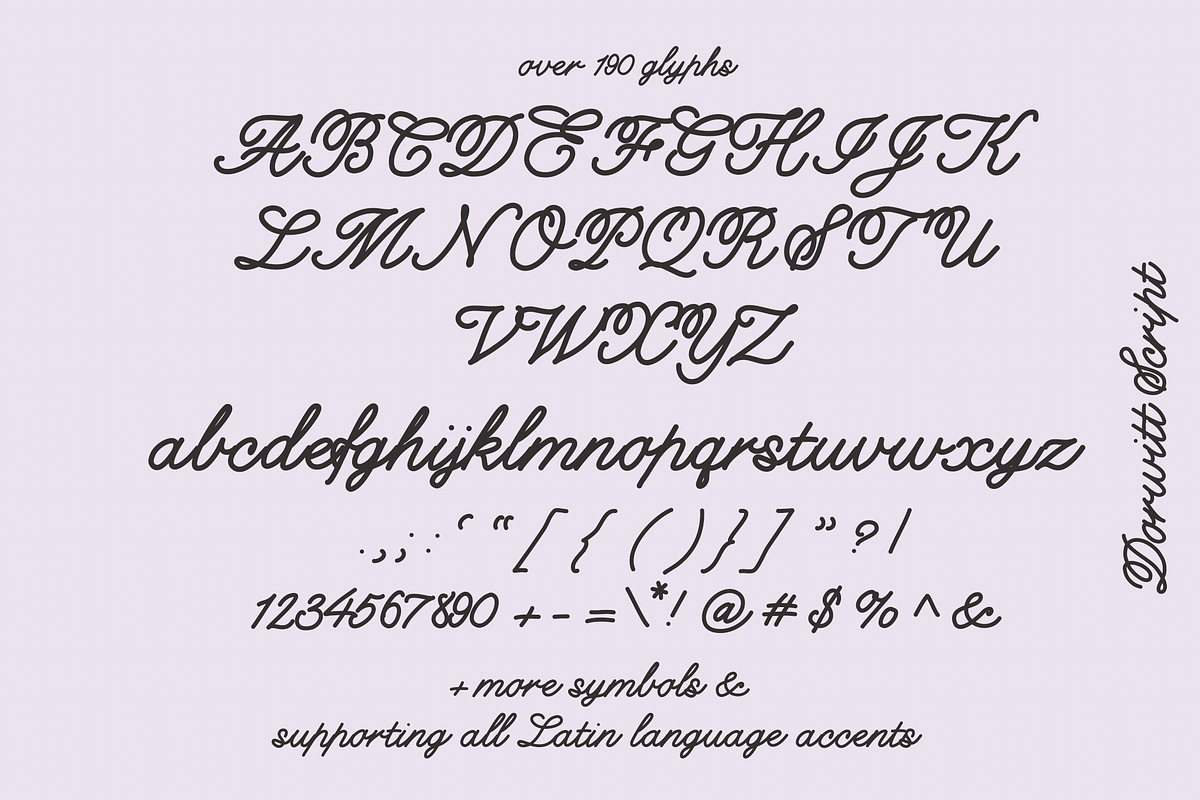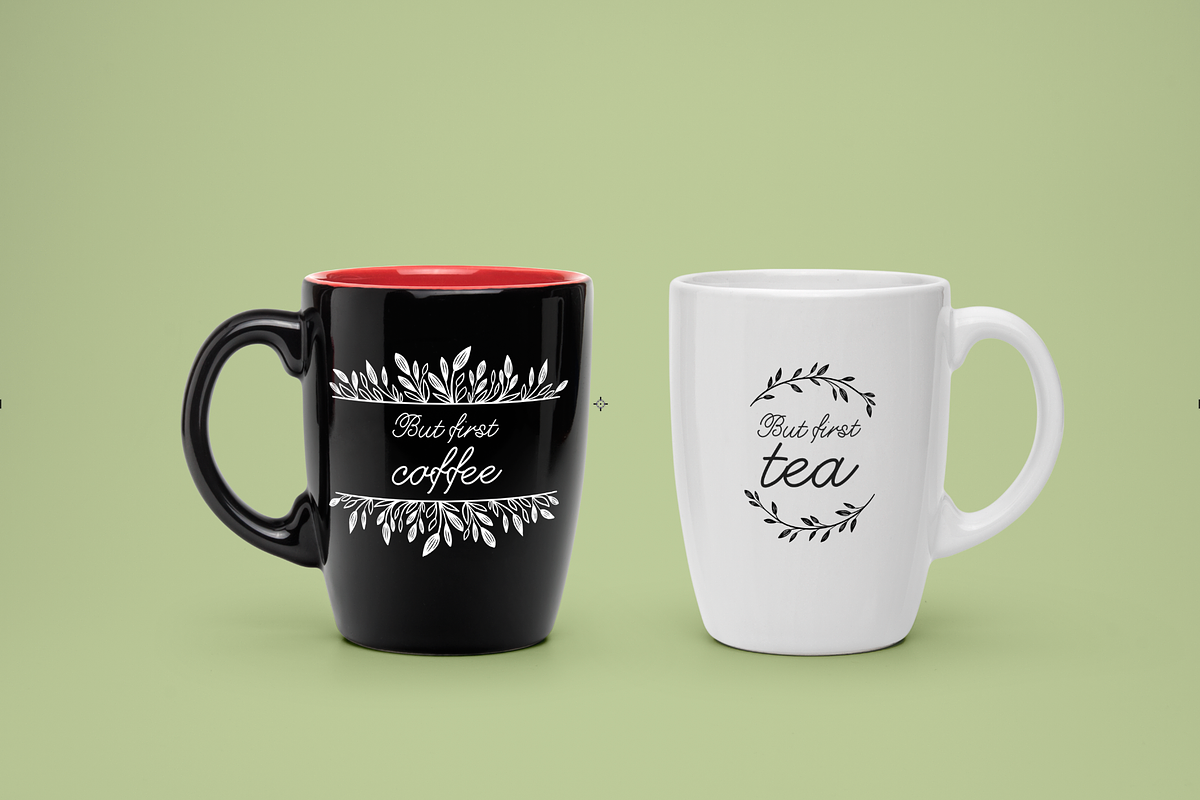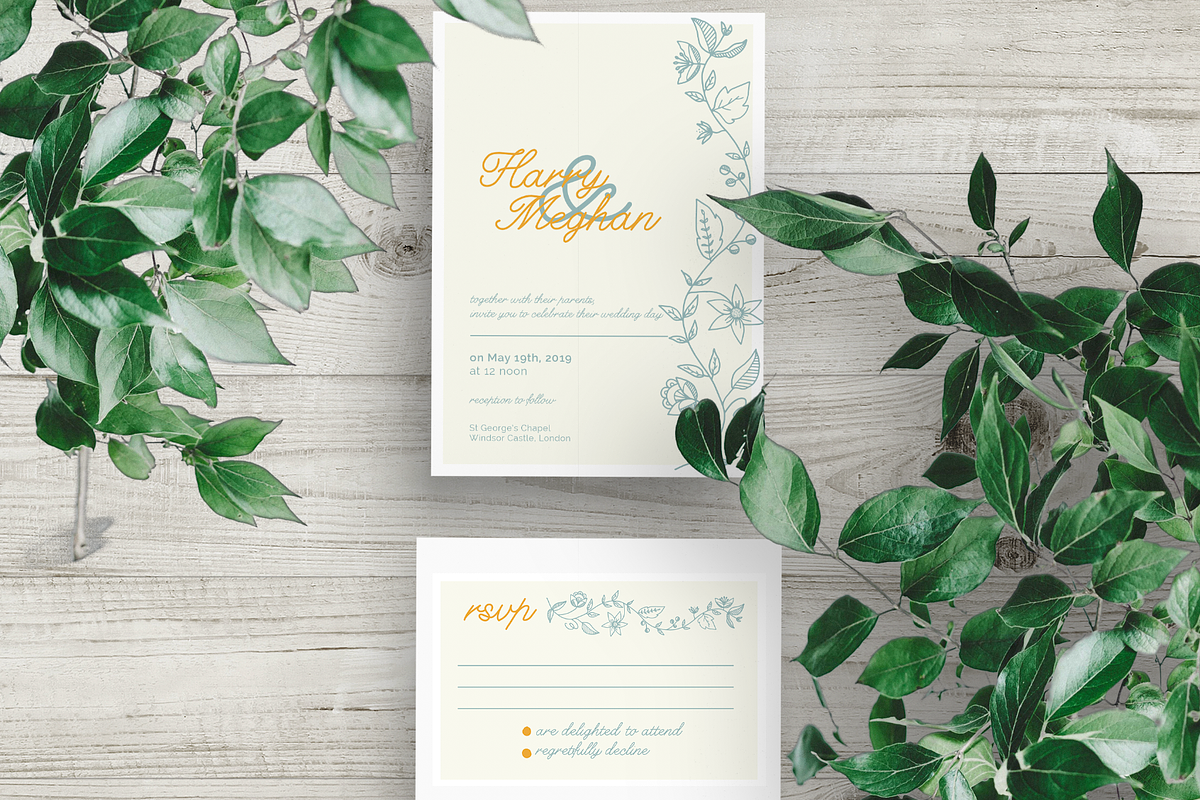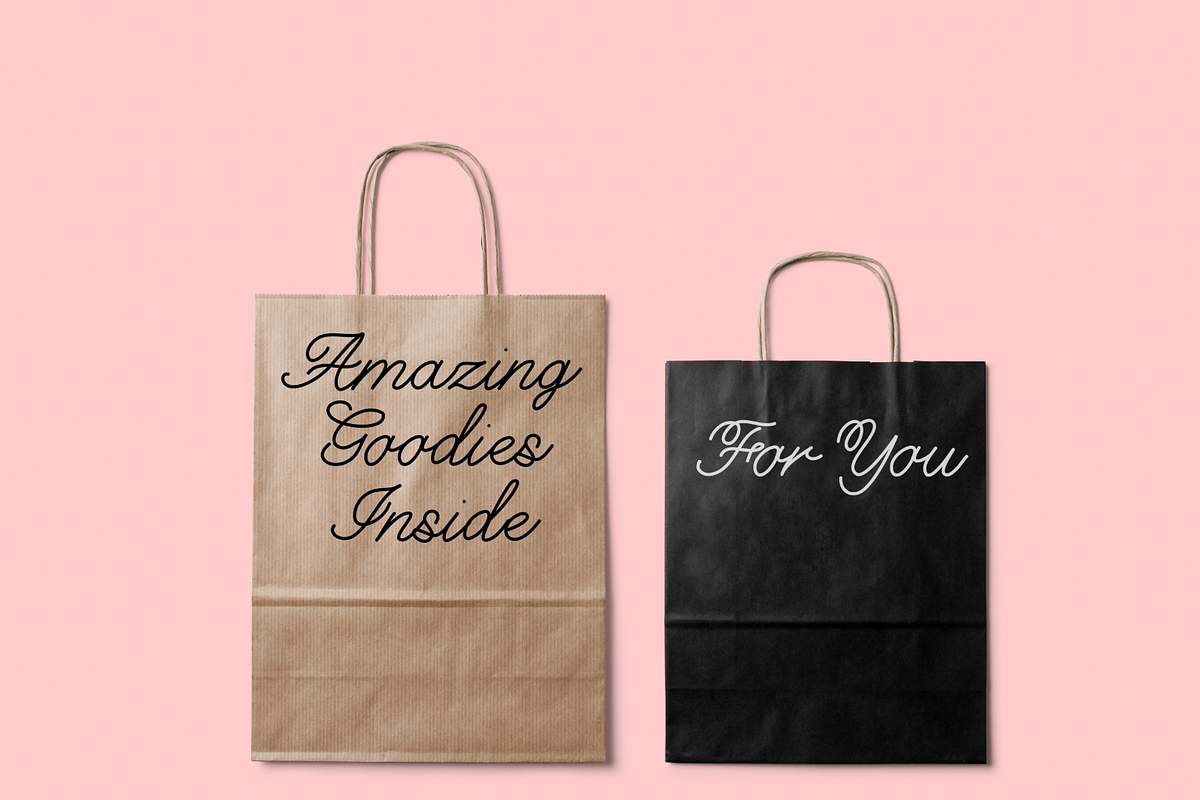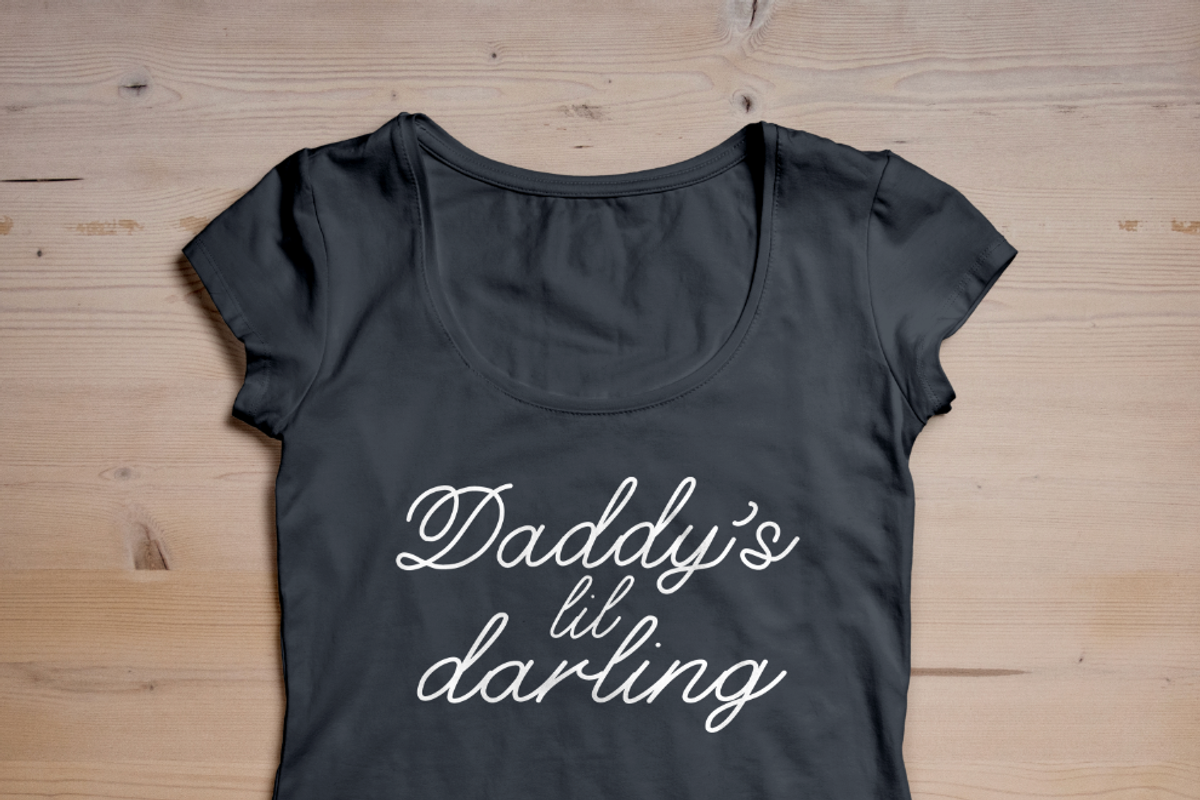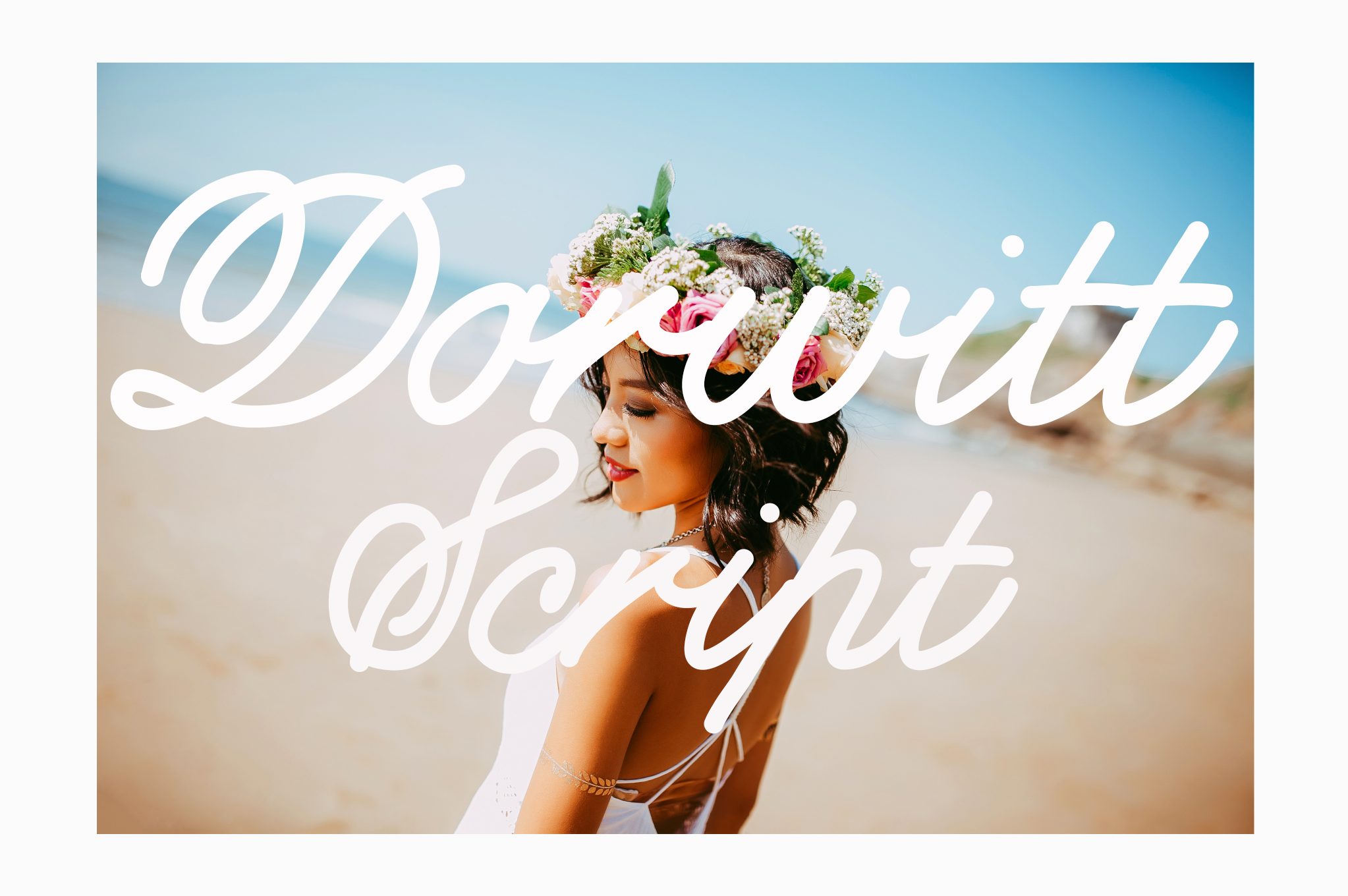
Introducing the Dorwitt Script font, lovingly reminiscent of old school cursive handwriting.
The slanted letterforms lend themselves to a variety of projects, including wedding stationery, logos and branding, social media posts, product packaging - wherever you want to add a clean and handwritten touch.
No alternates are offered at this time, but the .ttf download includes over 190 glyphs, covering upper- and lowercase letters in all latin accented variations.